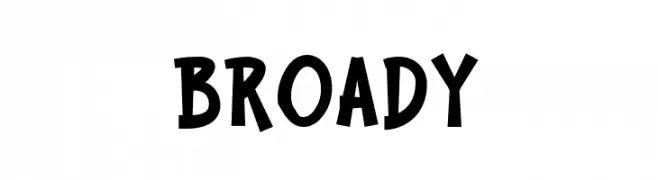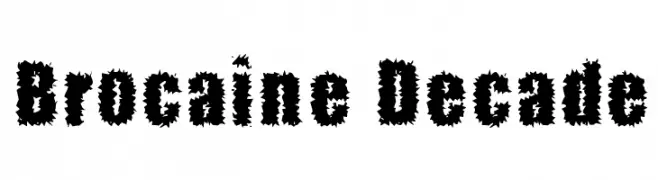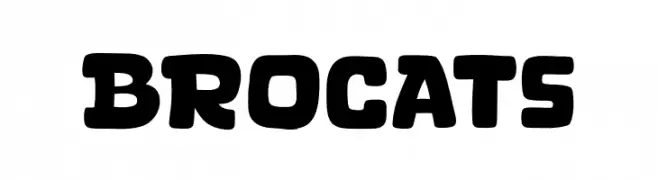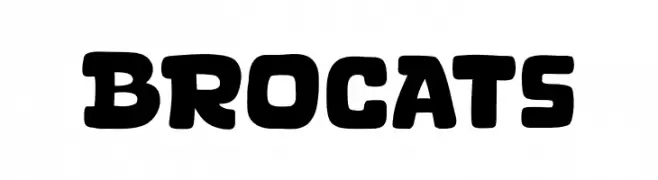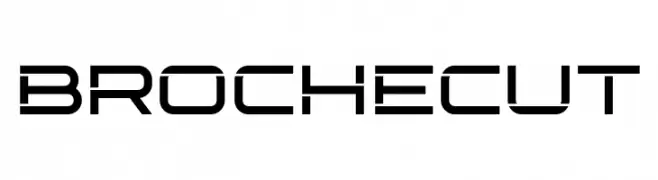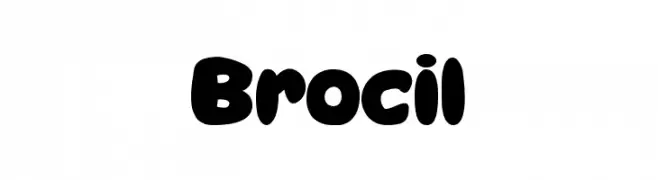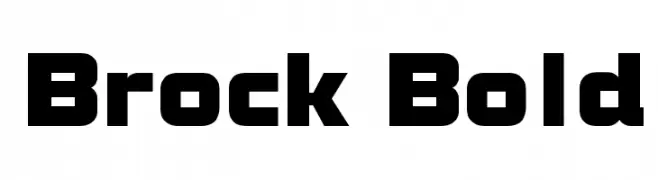
• Broadwell-Standard
( Parker Creative - Alan Parker - fontbundles.net/parker-creative OFF SITE )
A modern, geometric sans-serif font with uniform stroke width.
• BROADY
( Fonts by Display Studio )
A bold, playful font with a hand-drawn, whimsical style.
• Brocaine Decade
( Fonts by Rich Gast - www.greywolfwebworks.com OFF SITE )
A bold, jagged, and highly stylized font with rough edges and a rugged appearance.
• Brocats
A bold, playful font with rounded edges and a retro-modern style.
• Brocats
A bold, rounded font with a playful and friendly style.
• broccoli
• Broche Cut
A modern, geometric font with angular lines and unique cut-out sections.
• Broche Cut
A modern, geometric font with sharp angles and a futuristic aesthetic.
• Brocil
( Fonts by Pinisiart )
A bold, playful font with rounded edges and a bubbly appearance.
• Brock Bold